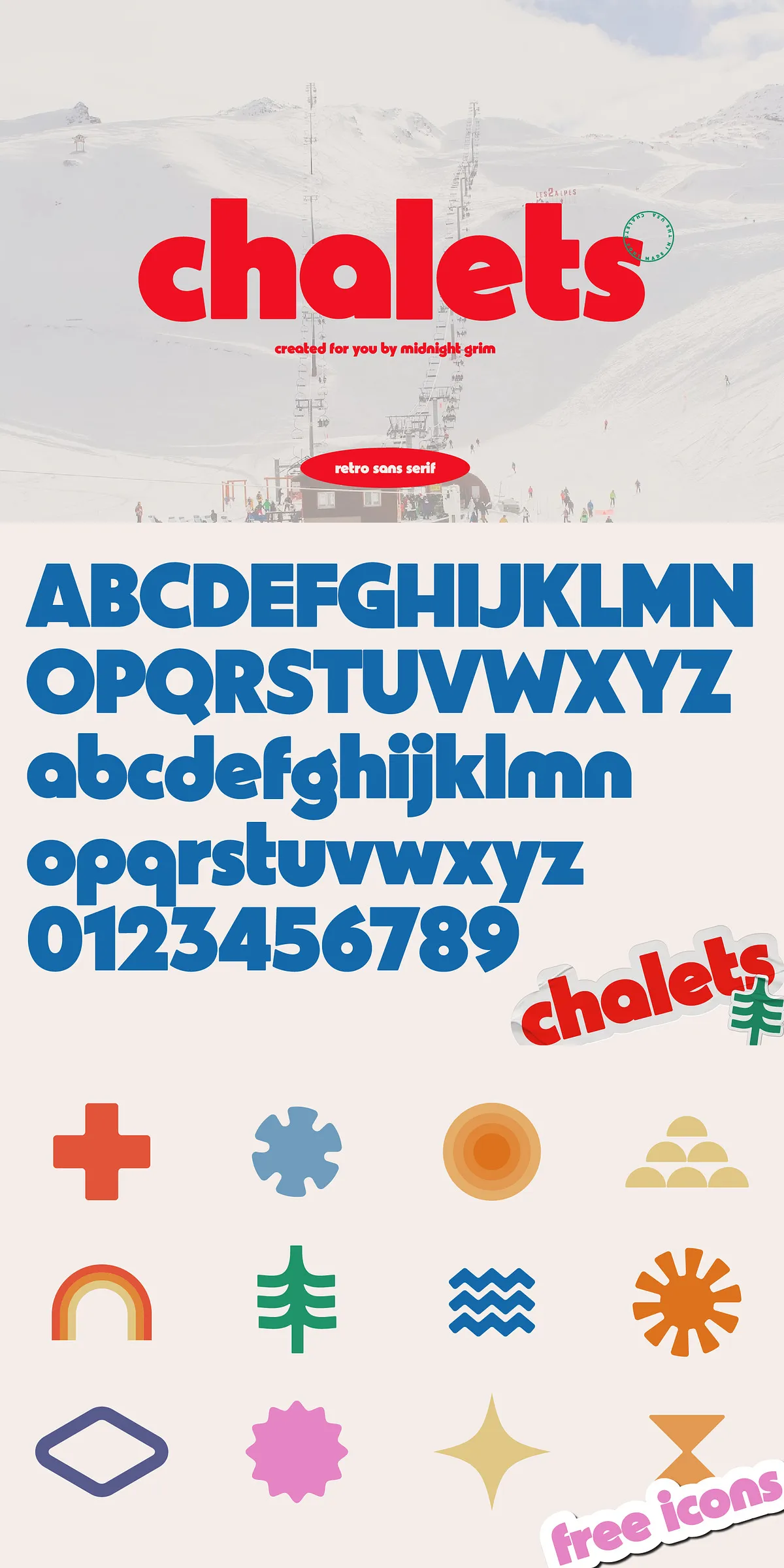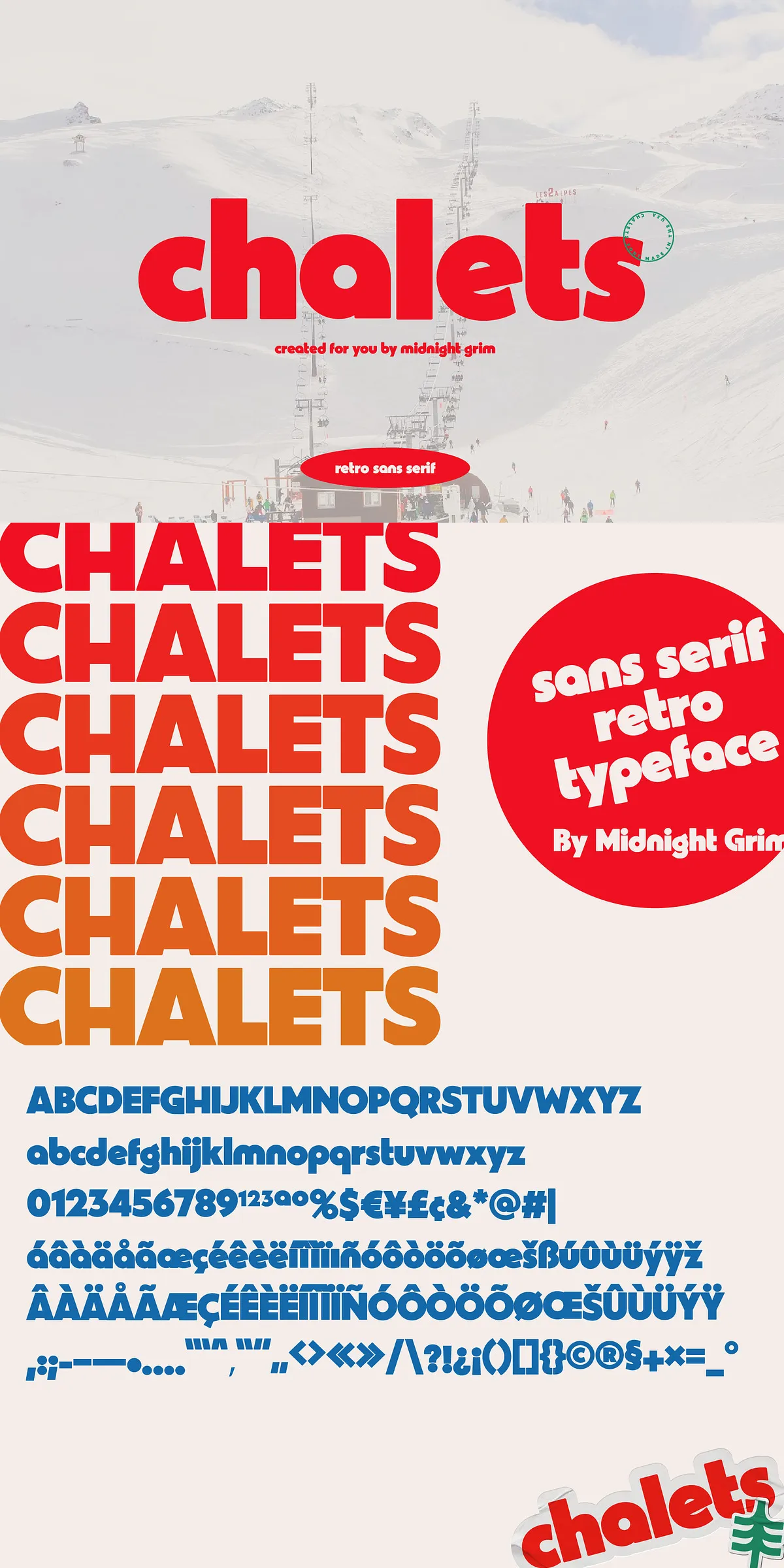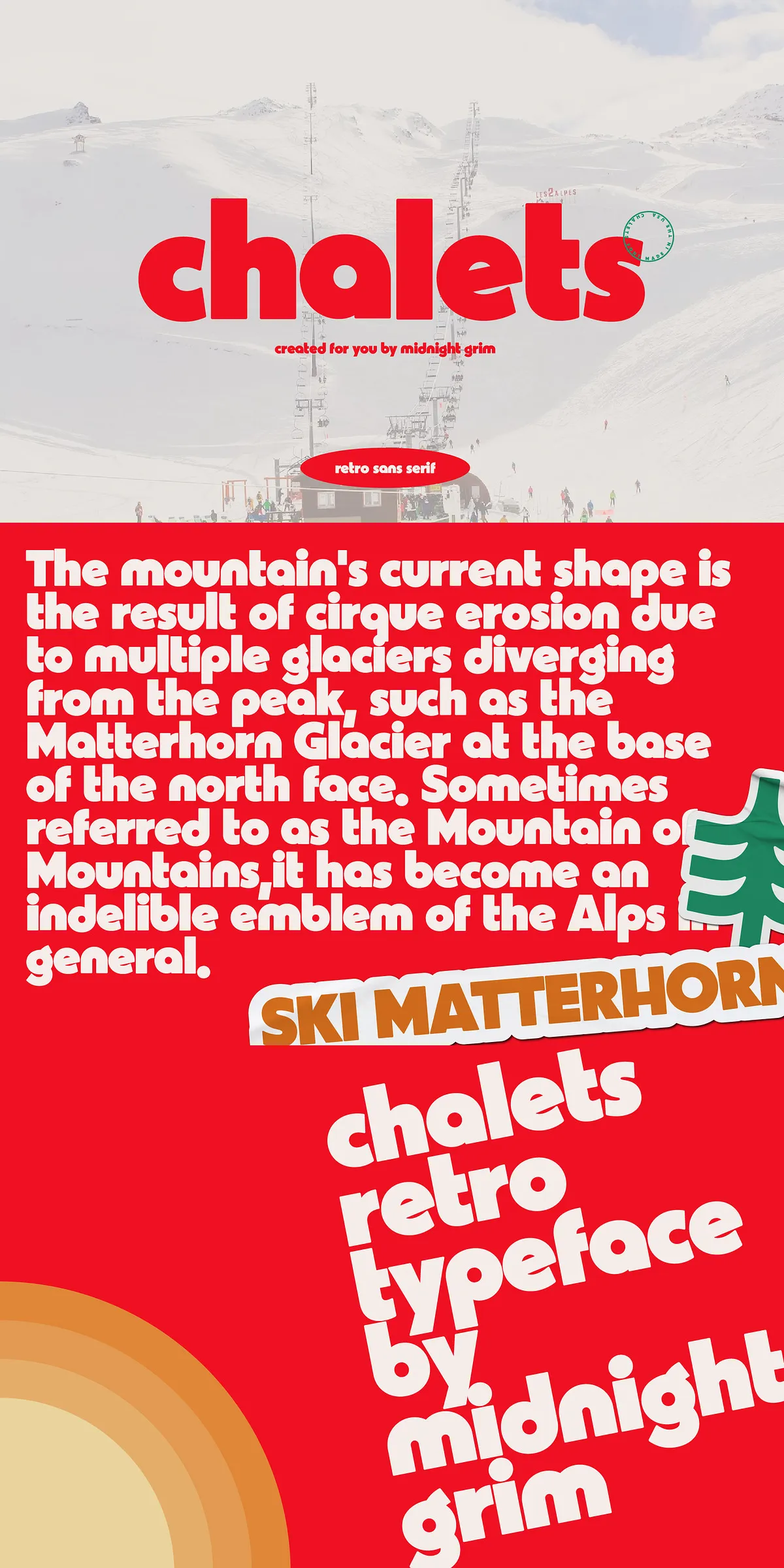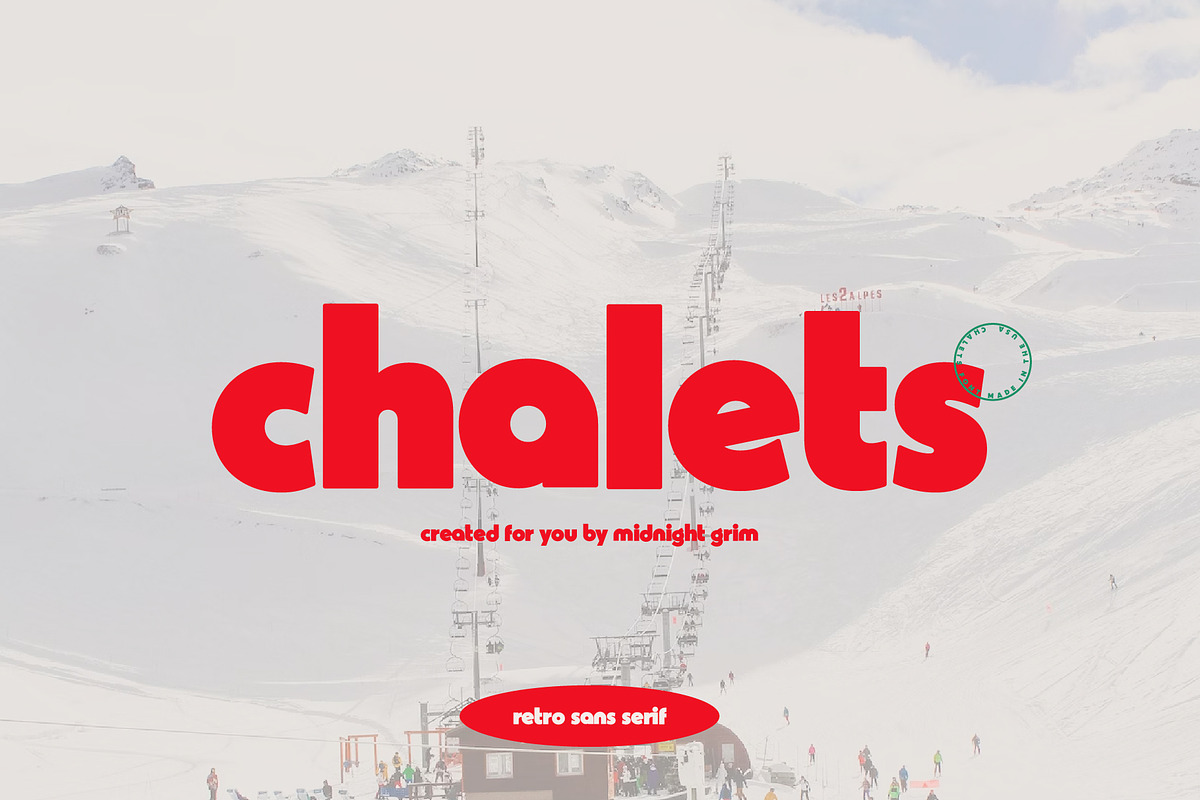
Chalets – Vintage Typeface
Turn heads, ignite inspiration, and carve your own path through the design world with Chalets—a bold, vintage ski-inspired display typeface that brings the thrill of the slopes right into your creative studio. This is not just a font; it’s a high-octane declaration of attitude, energy, and timeless retro elegance. If you’re looking to inject your project with instant character—something that grabs attention like a pro skier taking the final descent—Chalets is your go-to force.
Unleash the Power of Retro Ski Vibe
Born from the golden era of winter sports culture, Chalets captures the rugged charm of 1970s–1980s ski resorts, with a modern twist that hits hard. Its strong, geometric strokes and slightly exaggerated proportions mimic the bold signage you’d find on mountain lodges, ski lift tickets, and vintage advertising. This isn’t subtle design—it’s design with a mission. Every letter screams confidence, nostalgia, and adventure.
With its bold, compressed structure and dynamic curves, Chalets slices through clutter. Whether you’re designing a ski resort logo, festival poster, or lifestyle brand tagline, this font doesn’t blend in—it commands the spotlight. It’s the kind of typeface that makes your audience pause, look twice, then say, “Wow, that’s fresh.”
12 Premium Ski-Themed Icons to Elevate Your Visual Story
Beyond the letters, Chalets delivers an immersive design experience with a full set of 12 custom-built icons inspired by winter sports culture. From ski poles and helmets to mountain peaks and après-ski scenes, these icons are crafted to match the font’s retro aesthetic.
These aren’t just decorative elements—they’re narrative tools. Use them to build compelling visual hierarchies, create themed infographics, or add playful touches to packaging, flyers, and social media posts. They work seamlessly with the typeface, creating a cohesive universe of retro mountain design.
Engineered for Creative Excellence
Chalets is more than a visual statement—it’s a technical powerhouse built for real-world demands. Designed with full support for OpenType features, it ensures premium quality across platforms and software.
• 26 uppercase and lowercase Latin letters
• Digits, punctuation, and special symbols
• Multiple stylistic alternatives for key glyphs (e.g., “S” and “A”)
• Comprehensive ligatures for smoother, more natural text flow
This attention to detail means your text doesn’t just look good—it performs, even in tight layouts or high-contrast designs.
Creative Applications That Demand Attention
Chalets thrives where bold choices are rewarded. Here’s where you should unleash it:
• Ski Resort & Mountain Branding: Build a powerful identity for lodges, rental shops, or ski schools with fonts that tell a story.
• Festival & Event Graphics: Perfect for winter sports events, music festivals in mountain towns, and adventure expos.
• Lifestyle & Adventure Brands: Add retro sophistication to apparel, drink labels, travel blogs, and outdoor gear.
• Posters, Merchandise & Packaging: Dominate shelves and walls with headlines that draw the eye and spark curiosity.
• Web Headers & Social Media: Command attention in Instagram captions, YouTube thumbnails, and landing page titles.
Don’t Just Design—Dominate the Slopes of Creativity
Chalets isn’t about following trends. It’s about setting them. It’s for creators who don’t settle for ordinary and demand every project to stand out. This is the font that turns a simple headline into a cultural moment, a logo into a legend, and a design into a memory.